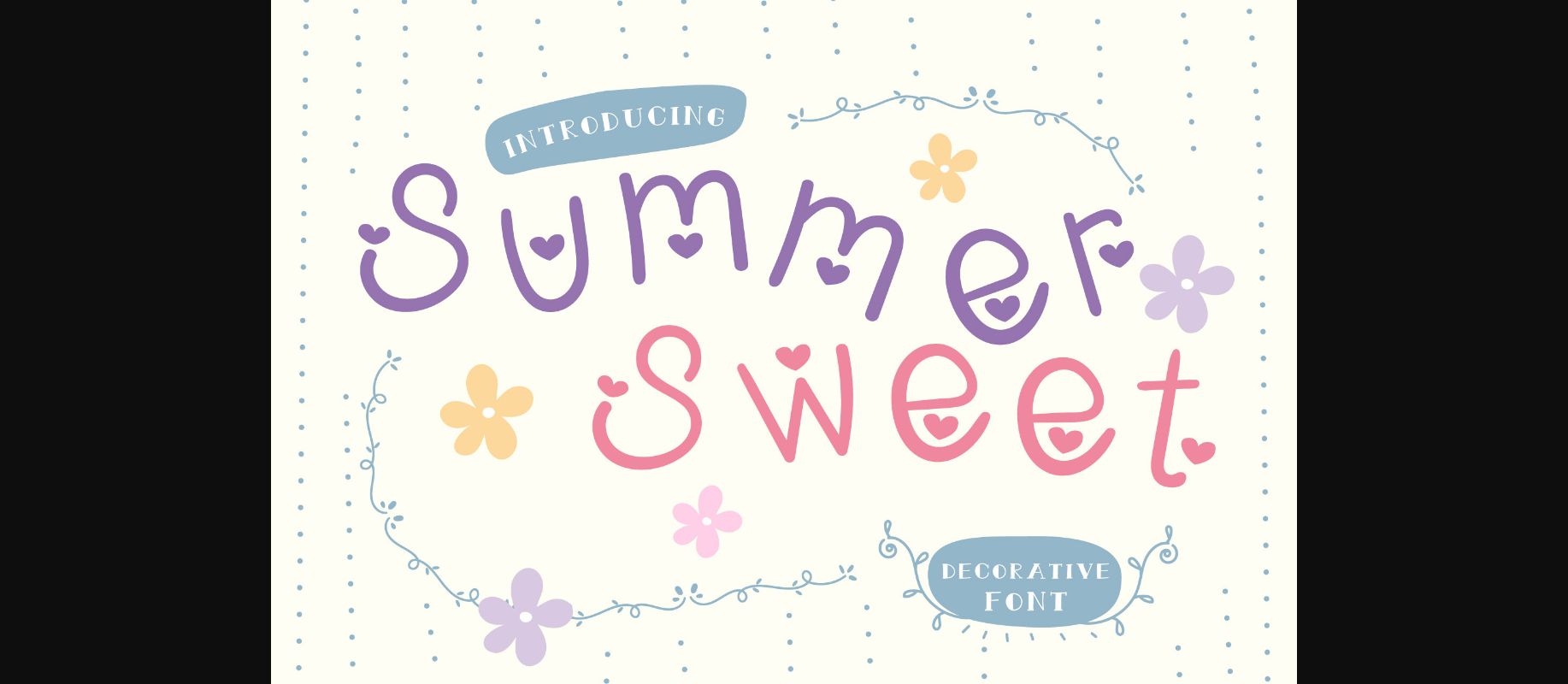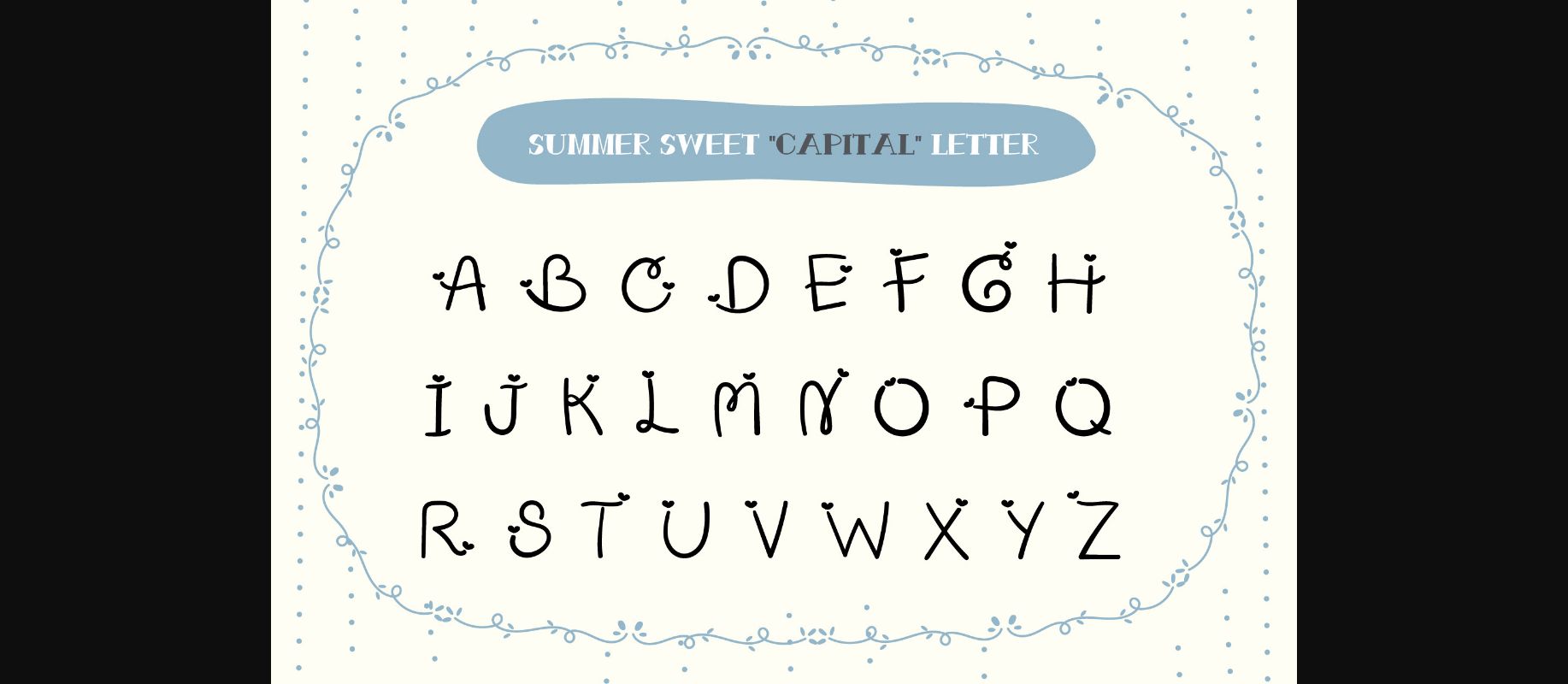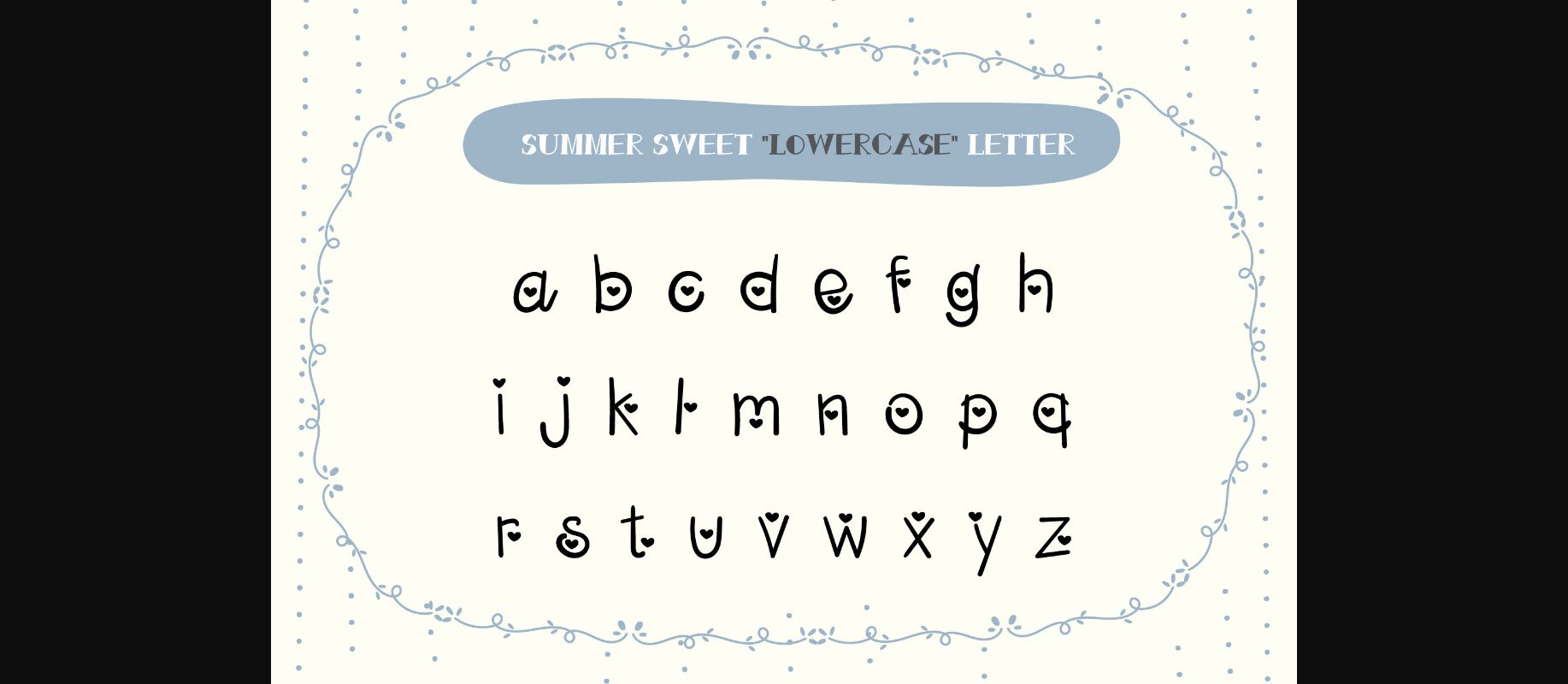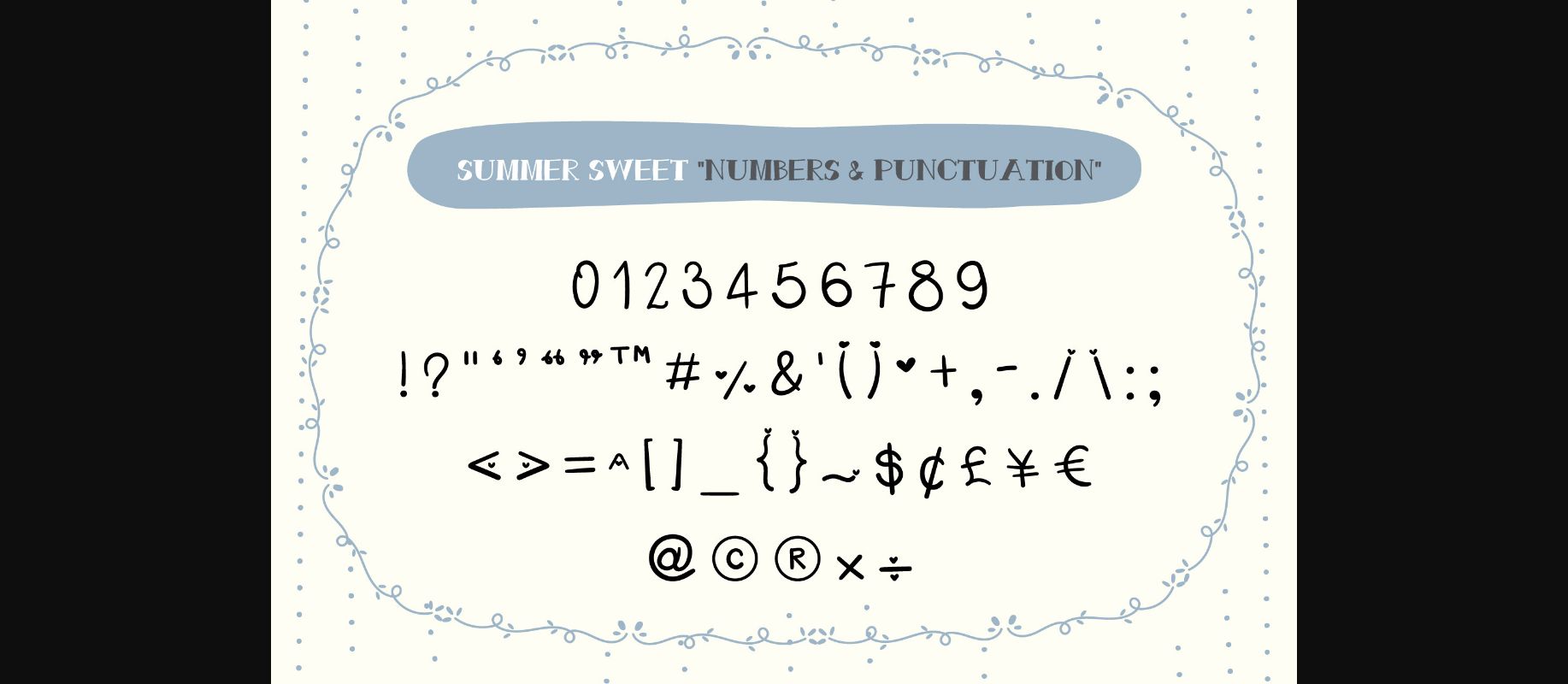
About Summer Sweet Font
SUMMER SWEETt is a delightful and charming handwritten font. With its playful and cute design, it’s perfect for adding a touch to any of your projects, Fall in love with it and use it to create gorgeous wedding invitations, beautiful stationary art, and eye-catching social media posts, from greeting cards to party invitations, and much more!